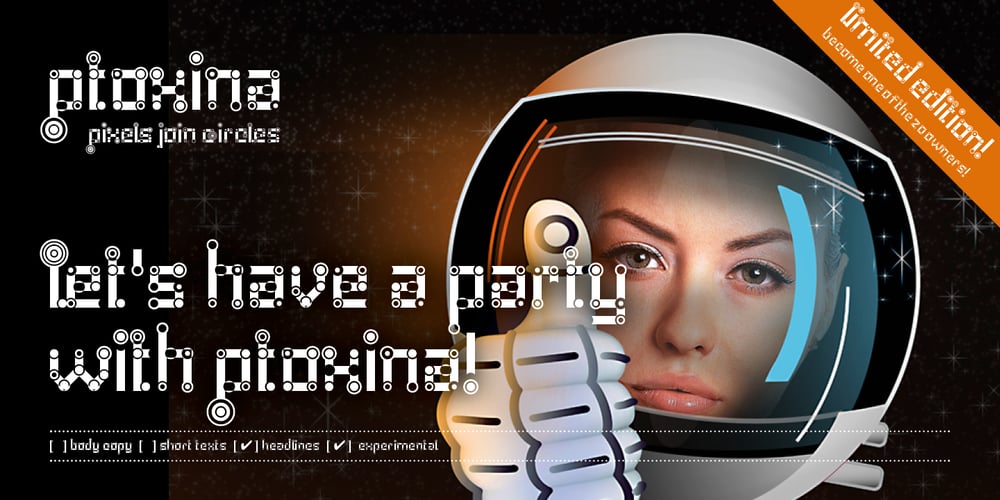
Ptoxina Font Family was designed by Filippo Salmina and published by FSdesign-Salmina. Ptoxina contains 1 styles and family package options. Ptoxina. Pixels join Circles. Ptoxina is a new member oft the Atoxina family with experimental character. In this experimental hypnotic font pixels join circles.